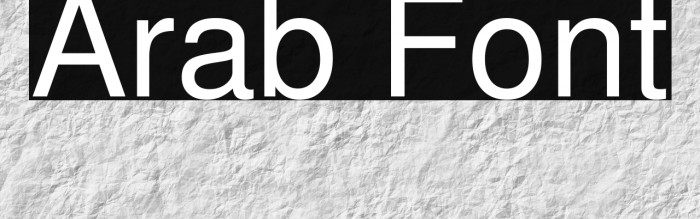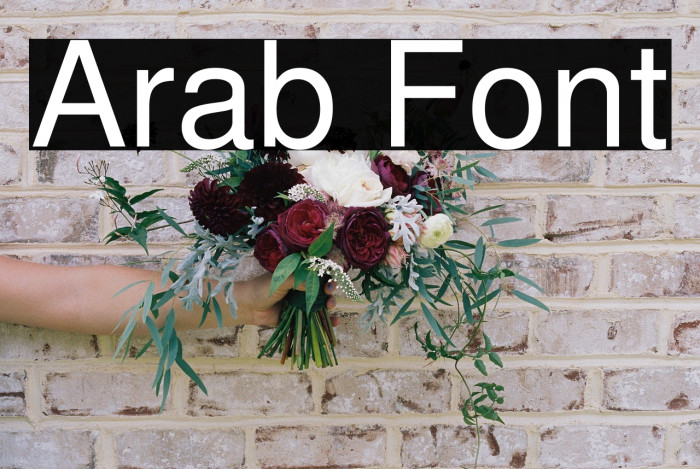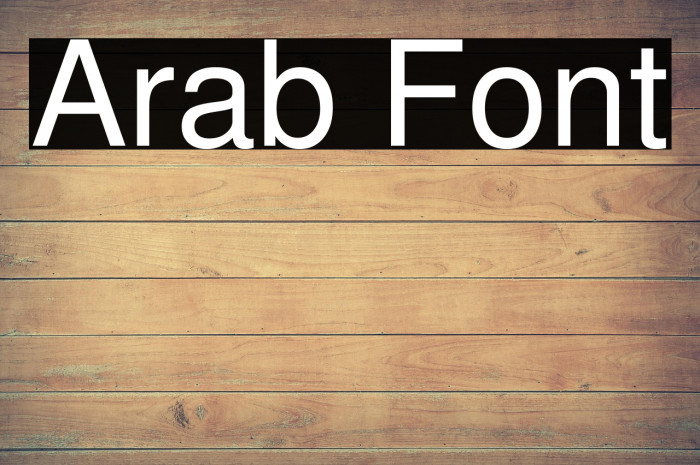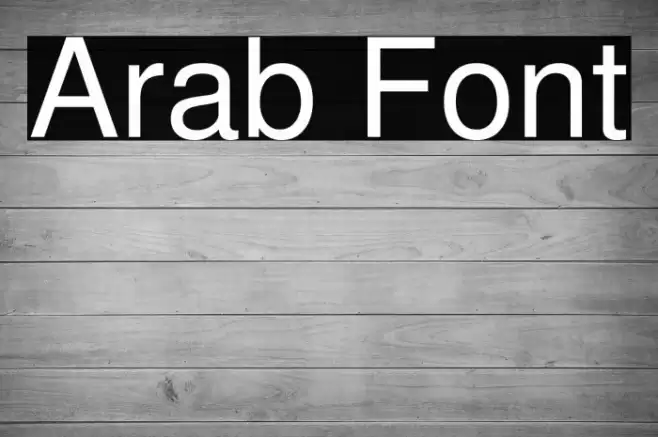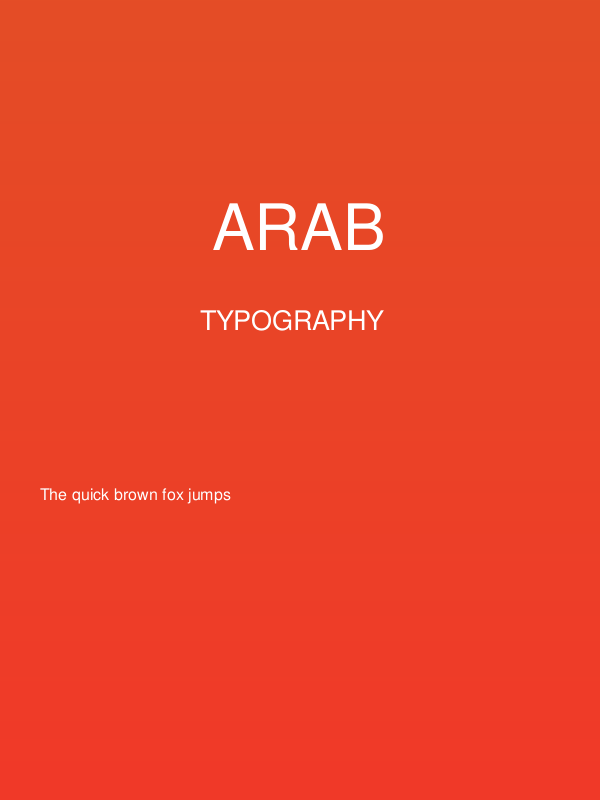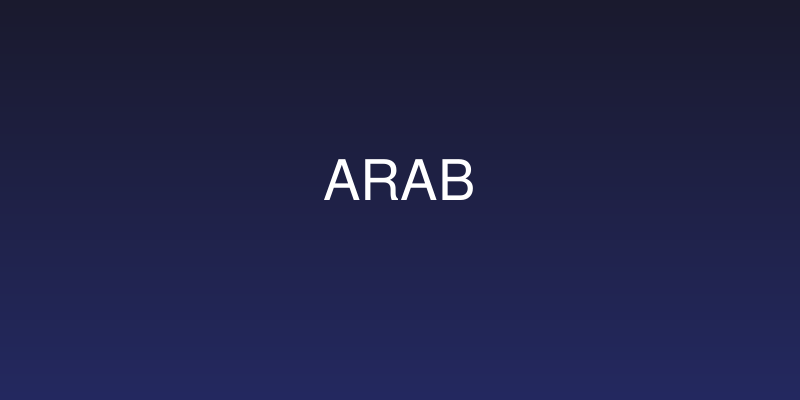
Arab Font
Arab Description
This font features a clean and modern sans-serif design, characterized by its simplicity and clarity. The letters are evenly spaced, with a consistent stroke width that provides a balanced and harmonious appearance. The uppercase and lowercase letters maintain a uniform height, contributing to its legibility. The numerals and special characters are designed to complement the alphabet, ensuring a cohesive look across all text. This font is versatile, suitable for a wide range of applications from digital to print media.
| Proposed Projects | Ideal for web design, corporate branding, editorial layouts, and user interfaces. |